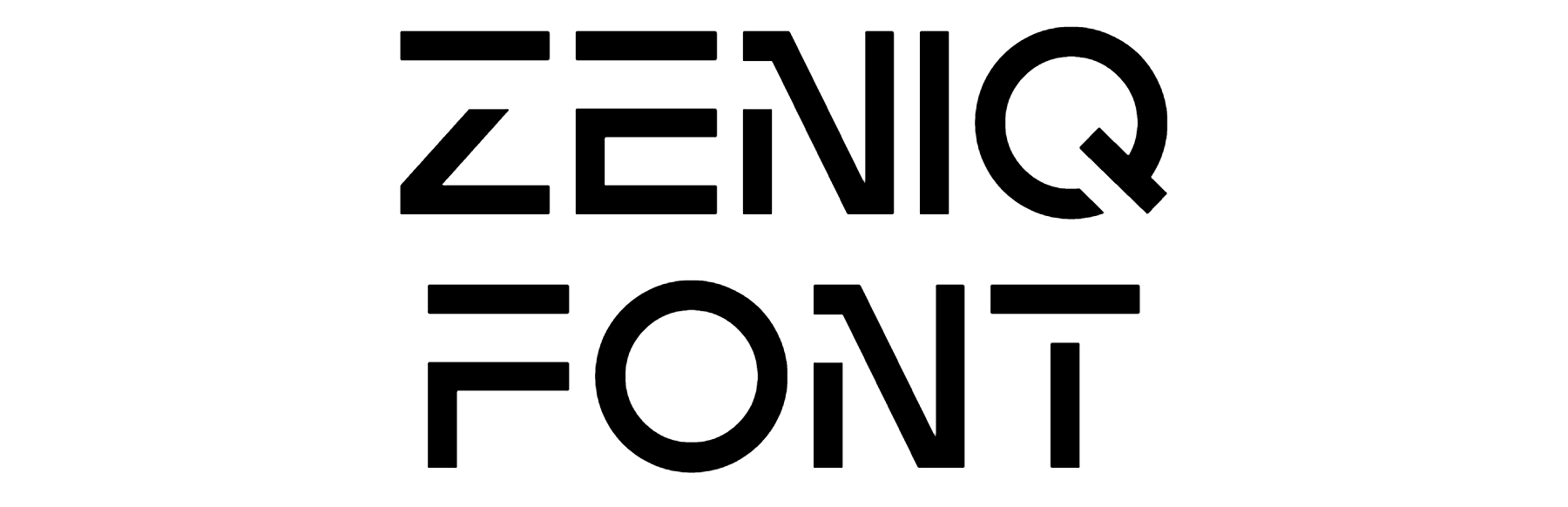
Zeniq
Zeniq is a techno font created by Burhan Afif and released through Hans Co (2020). Squared-off, geometric letters give it a digital, high-tech feel. It's a free download, and you can try it with your own text in the preview above first.
What You Can Type With Zeniq
Zeniq covers the full alphabet in upper and lowercase, plus all ten numbers, so you can set names, dates and prices without switching fonts. Common punctuation such as &, !, ? and @ is included as well. It also has the accented letters you need for Spanish, French, German, Portuguese and Italian.
Where Zeniq Works Best
Think of Zeniq for gaming logos, tech branding and futuristic posters. Try it on a dark background with a bright accent color for a sharp, modern look.
Does Zeniq support accented letters?
Yes. Zeniq includes the accented letters needed for Spanish, French, German, Portuguese and Italian, so it works for more than just English.
What fonts pair well with Zeniq?
A simple sans serif like Roboto keeps longer text easy to read next to it.